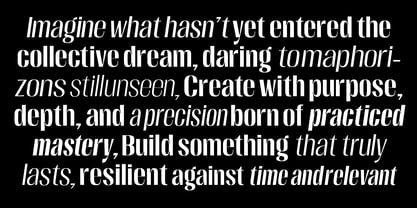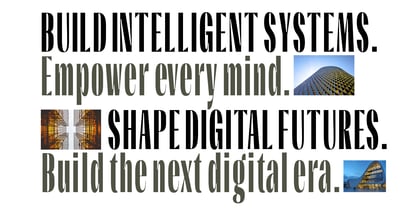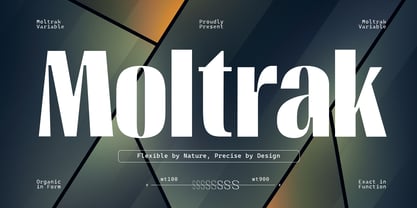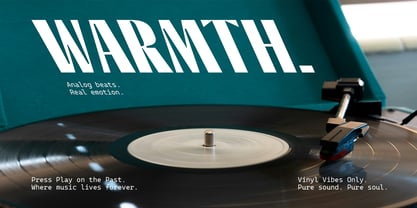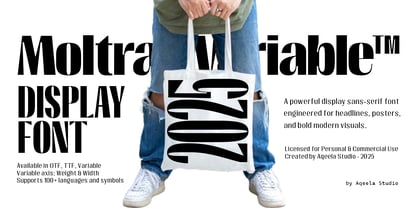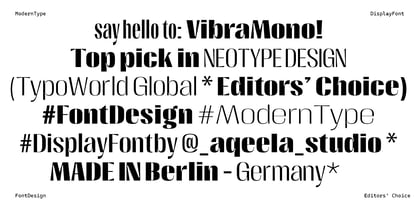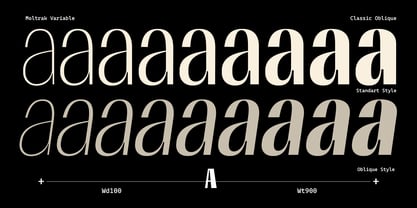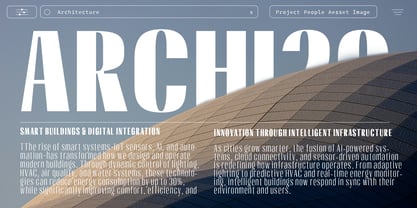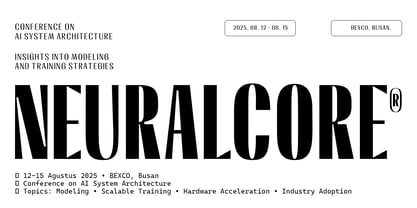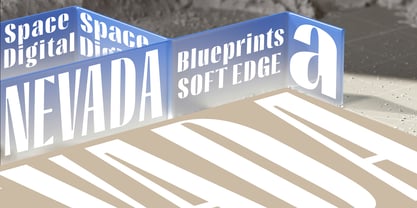
Moltrak
The Moltrak Font Family was designed by Muhammad Nasir and published by Aqeela Studio. Moltrak contains 130 styles.
Moltrak Variable is a sharp, flexible sans-serif built for the future of bold design. With 144 styles and full variable support (Weight, Width, and Slant), it adapts to any visual need—from sleek minimalism to powerful impact.
Crafted for headlines, posters, branding, and editorial use, Moltrak combines precise geometry with expressive flow. Available as a Variable Font and supporting 100+ languages, it’s your all-in-one tool for standout typography across any medium.